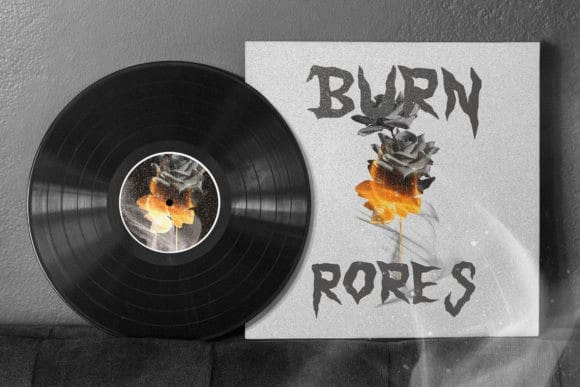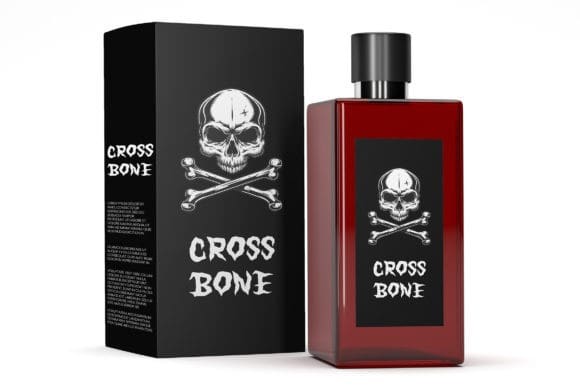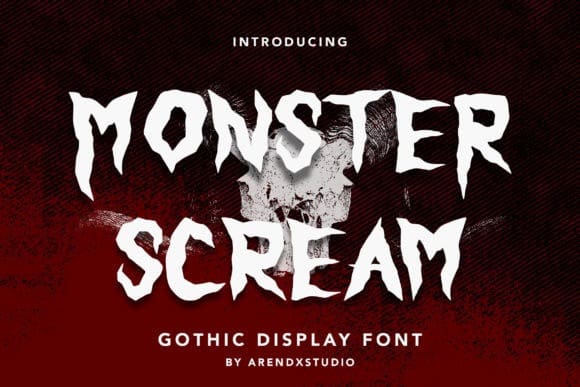
Monster Scream Font
Monster Scream Font is a gothic-lettered and spooky display font. It is perfectly suitable for any Halloween-related project or crafty idea! This font is PUA encoded which means you can access all of the glyphs and swashes with ease!